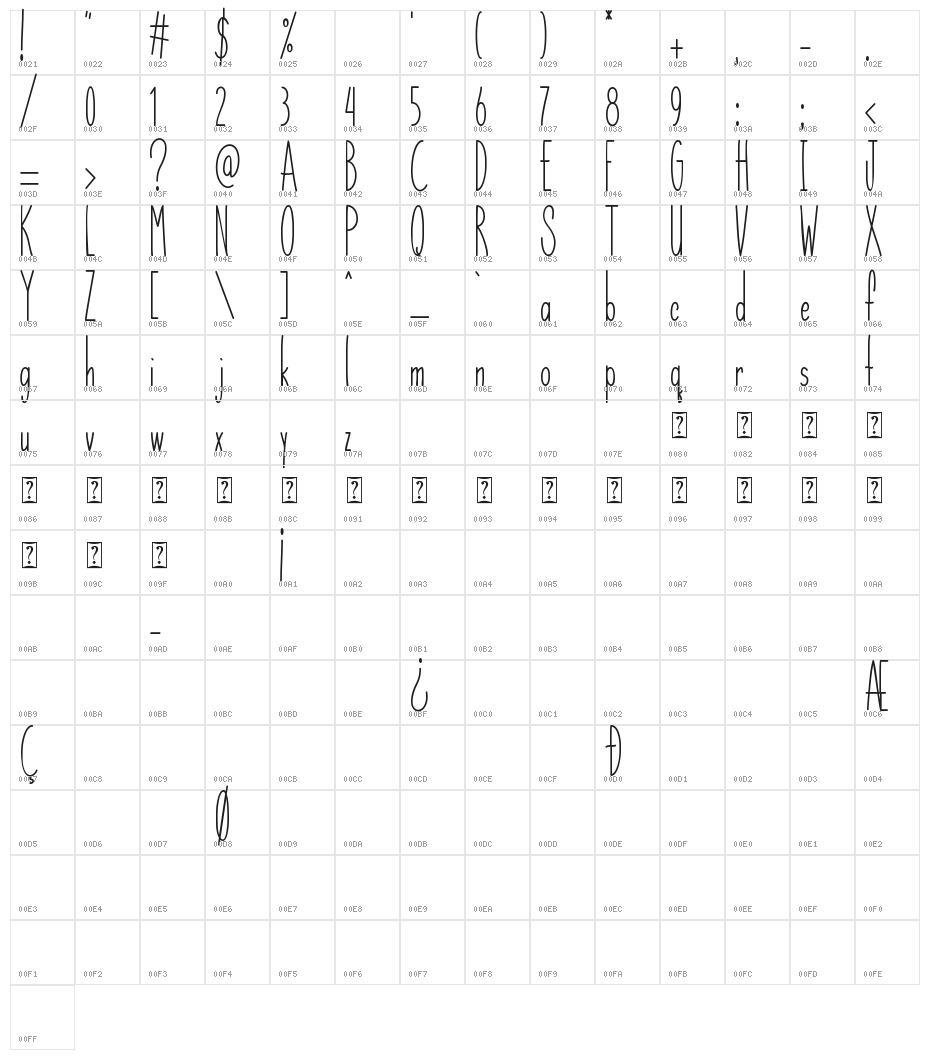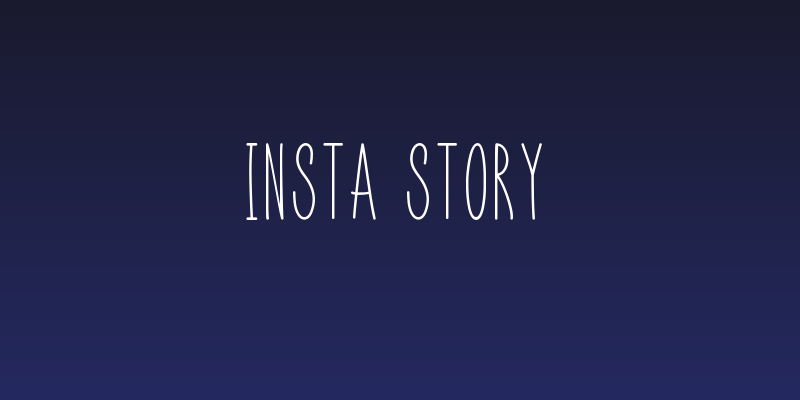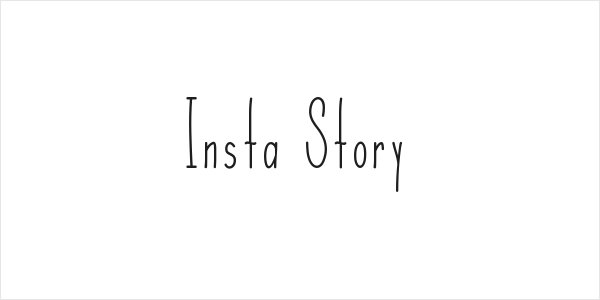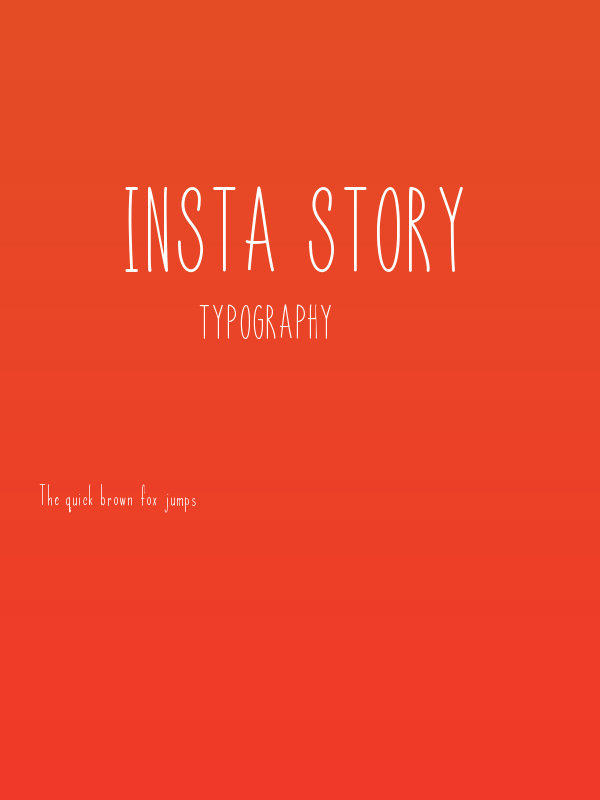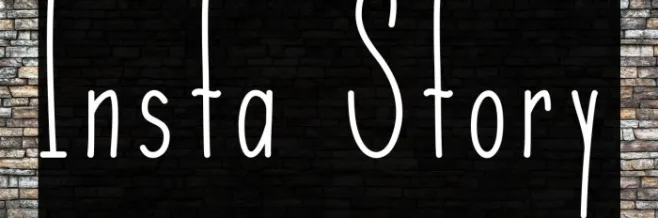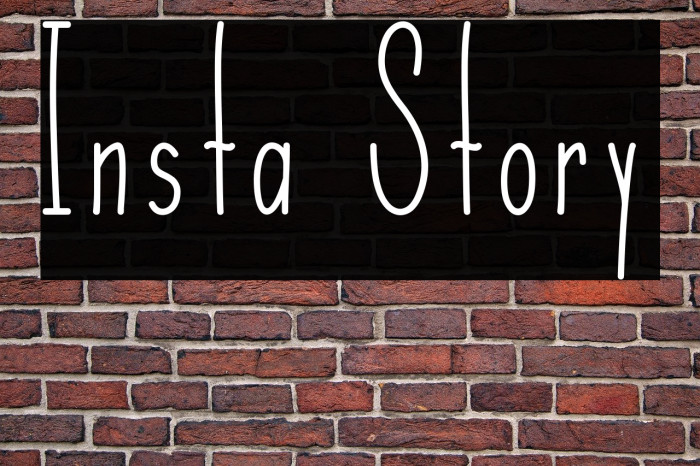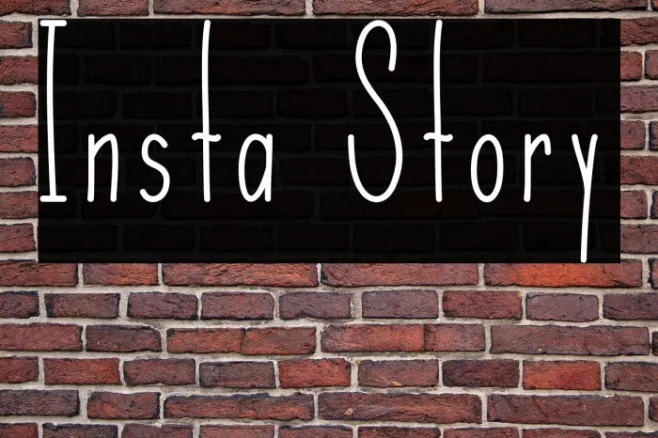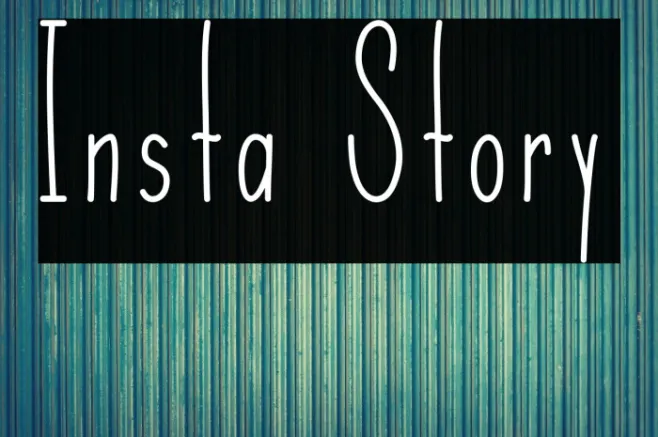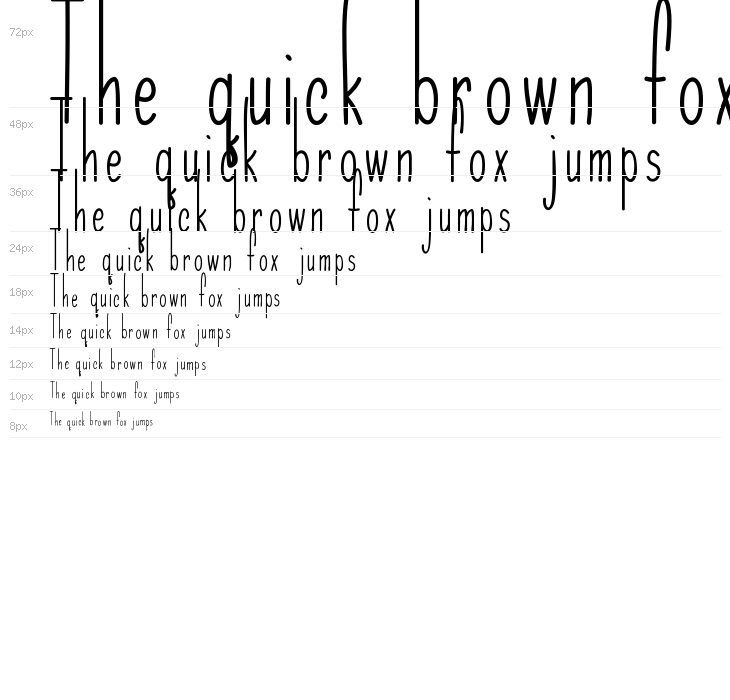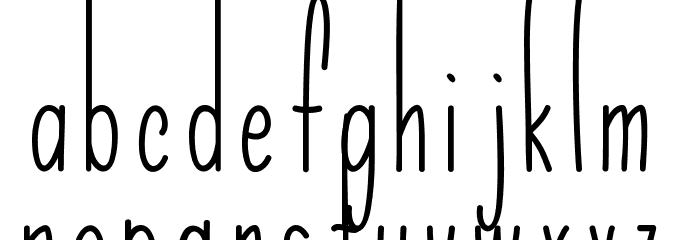
Insta Story Font
Insta Story Description
This font features a playful and whimsical design with tall, narrow characters that have a hand-drawn appearance. The strokes are consistent in width, giving it a monolinear look, while the letters have a slightly irregular baseline, adding to its casual charm. The uppercase letters are particularly elongated, creating a striking visual impact. The lowercase letters maintain the same playful style, with rounded edges and a friendly demeanor. Numbers and special characters are designed to match the overall aesthetic, making this font suitable for creative and informal applications.
| Overall Style | Whimsical |
| Use Case | Headlines, Logos, Social media graphics |
| Proposed Projects | Ideal for children's books, greeting cards, playful branding, and social media graphics. |